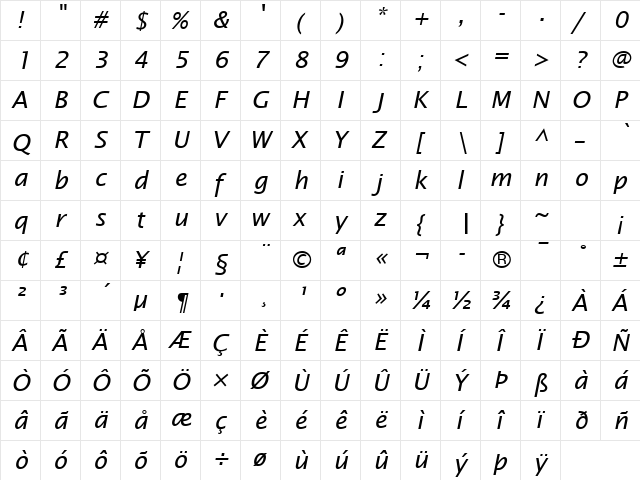
Precision Italic
Design Context for Precision Typeface
Precision is a composed and adaptable typeface that performs quietly and consistently across a wide range of design contexts. Its italic angle brings a sense of urgency and motion to the letterforms.
Pro Tip: Try Precision for annotation and caption copy alongside an upright companion — the contrast in angle creates a dynamic but ordered typographic system.